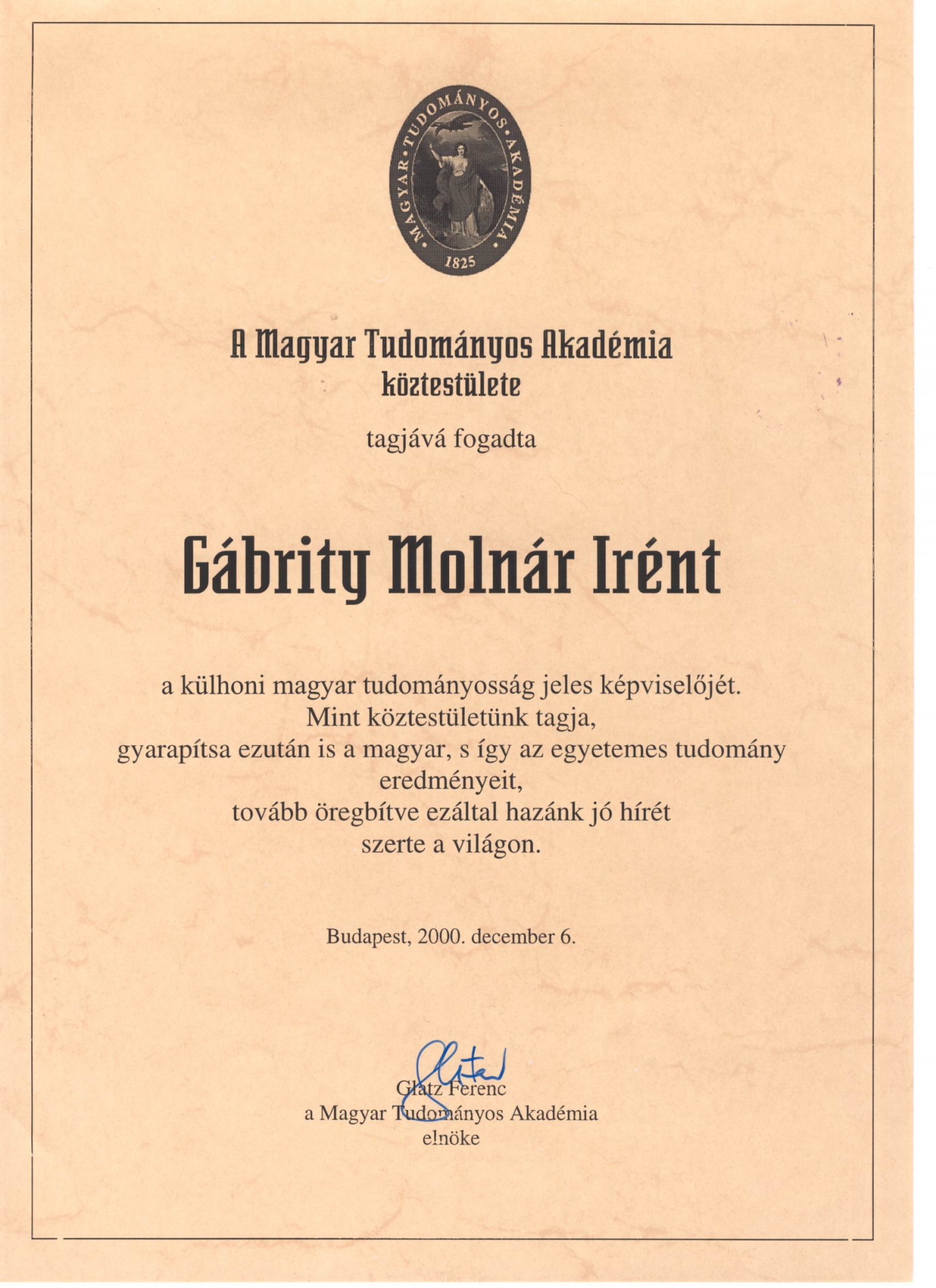
Another accidental remake of Senator by Emigre based on the letters AaádEeégiklMmnoóörsTtuüyz (rest improvised) from an old diploma issued to my grandfather by the Hungarian Academy of Sciences (Magyar Tudományos Akadémia)
I unfortunately don't have it anymore as I gave it to my dad and I never took any pictures of it, but I found this one online that is identical (apart from the name ofc)
Well done! A sample of the original diploma would be great, if possible.
I unfortunately don't have it anymore as I gave it to my dad and I never took any pictures of it, but I found this one online that is identical (apart from the name ofc)
Oops just found the actual font, Senator by Emigre
The great @Sed4tives made his own personal interpretation of a similar font.